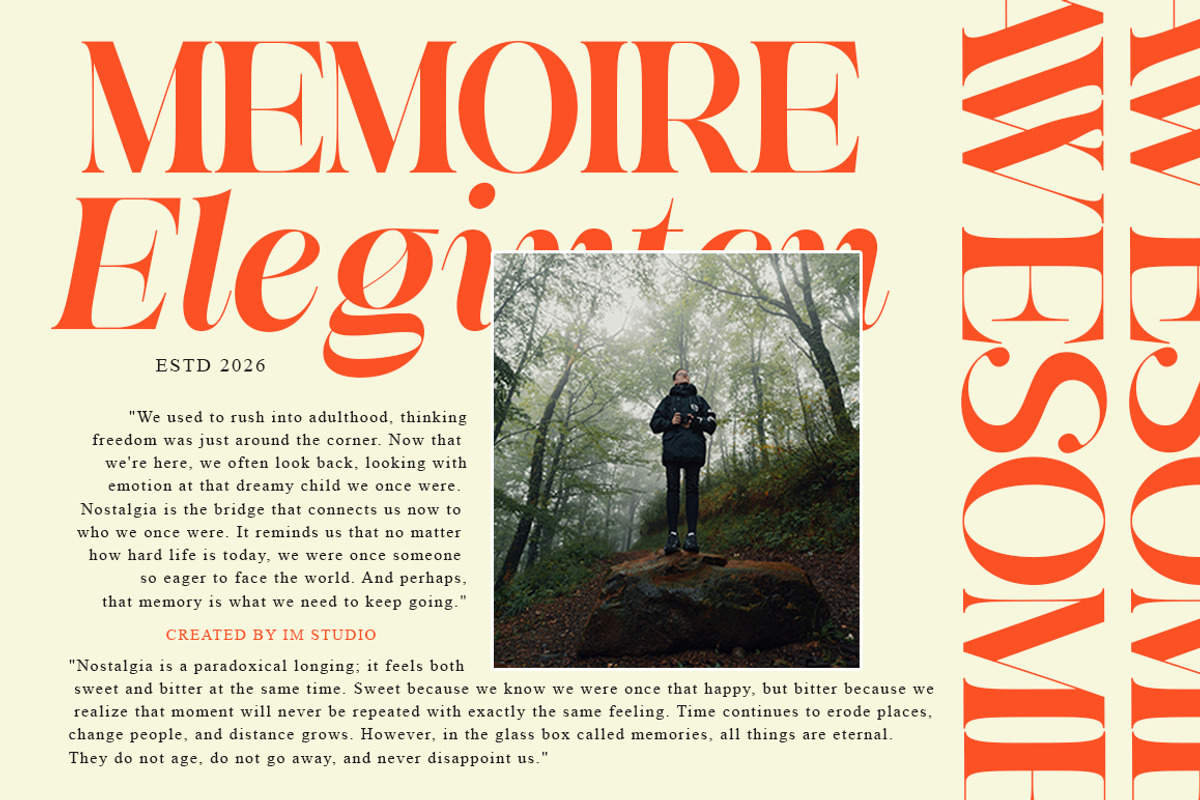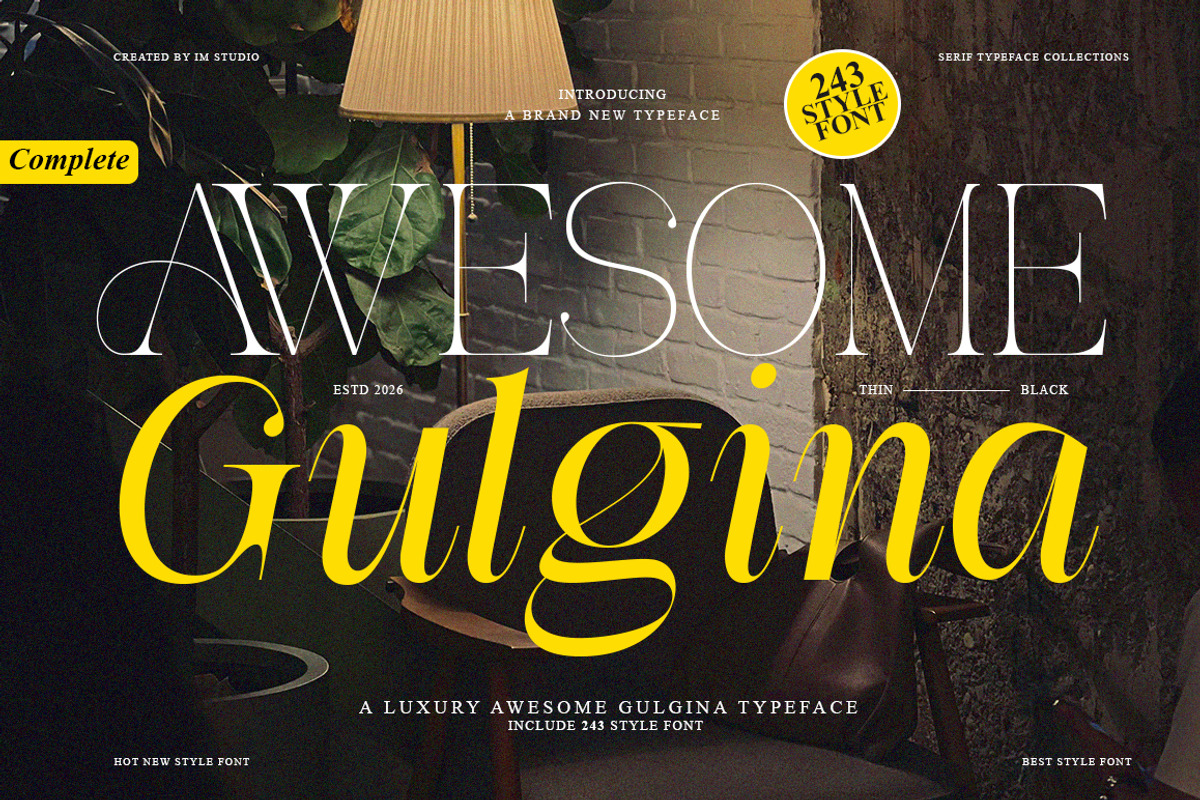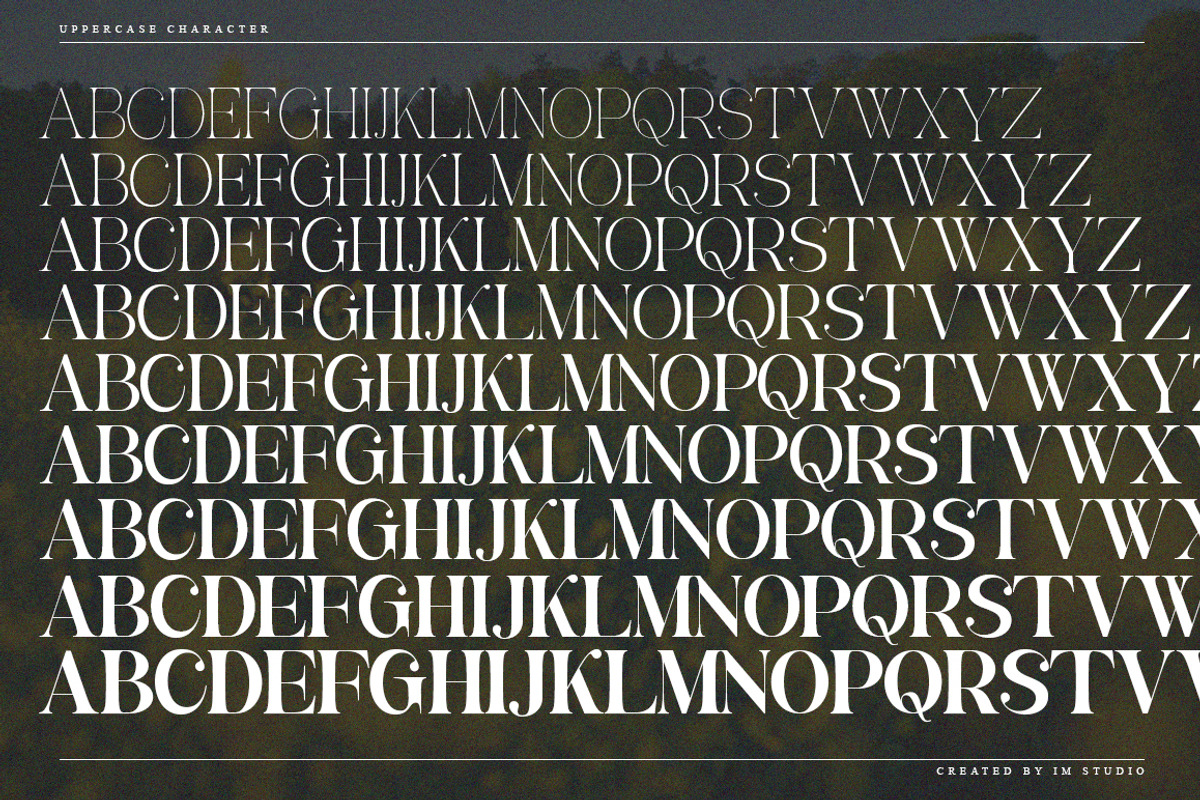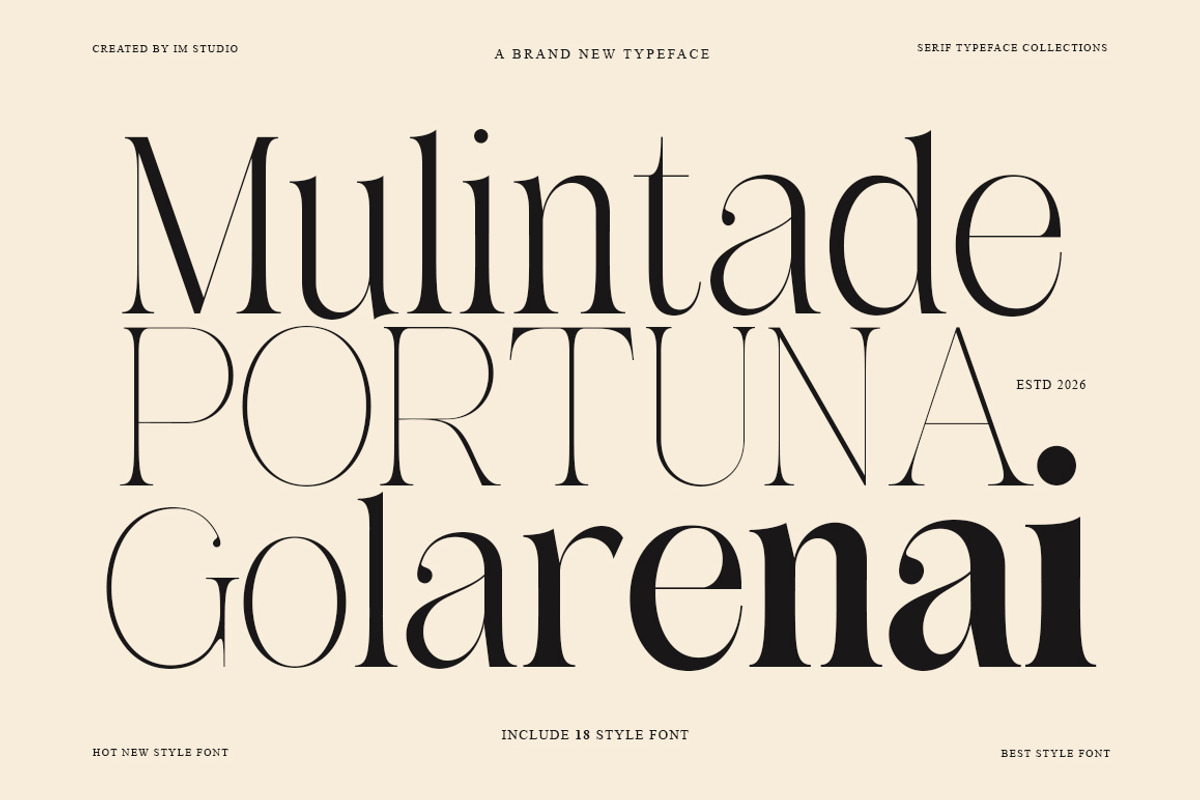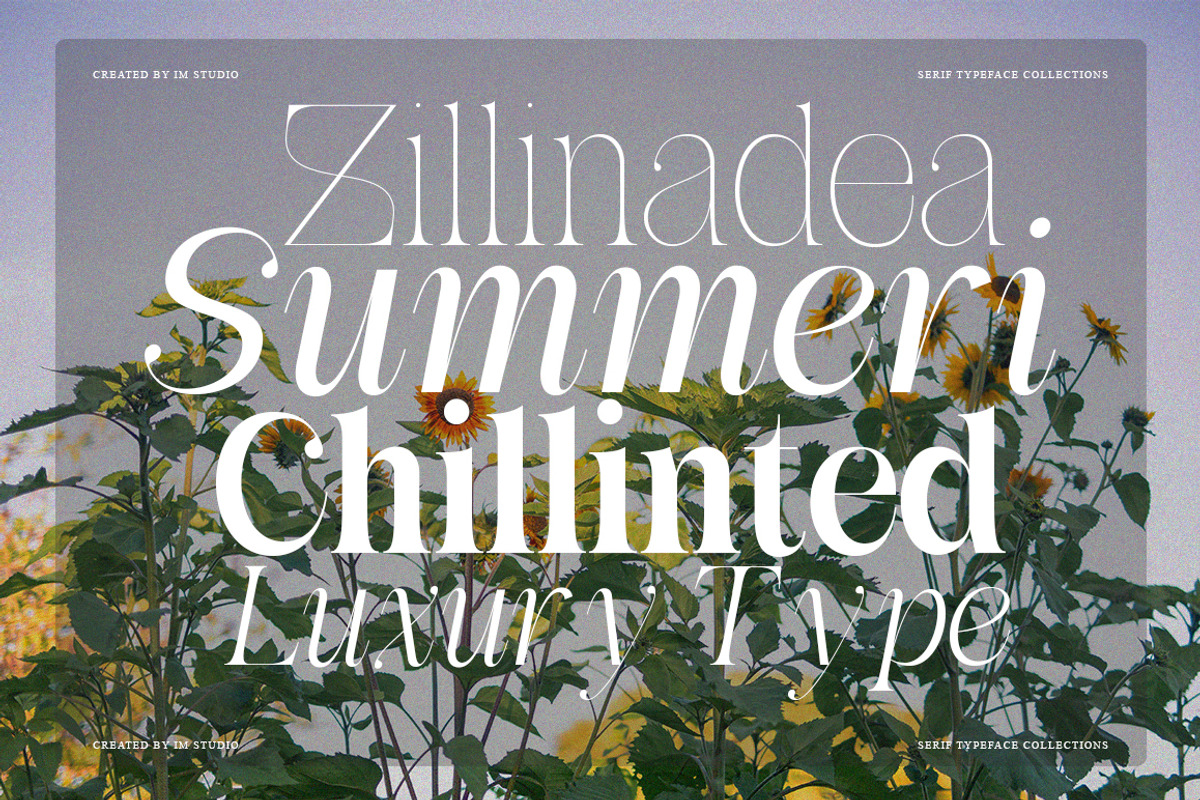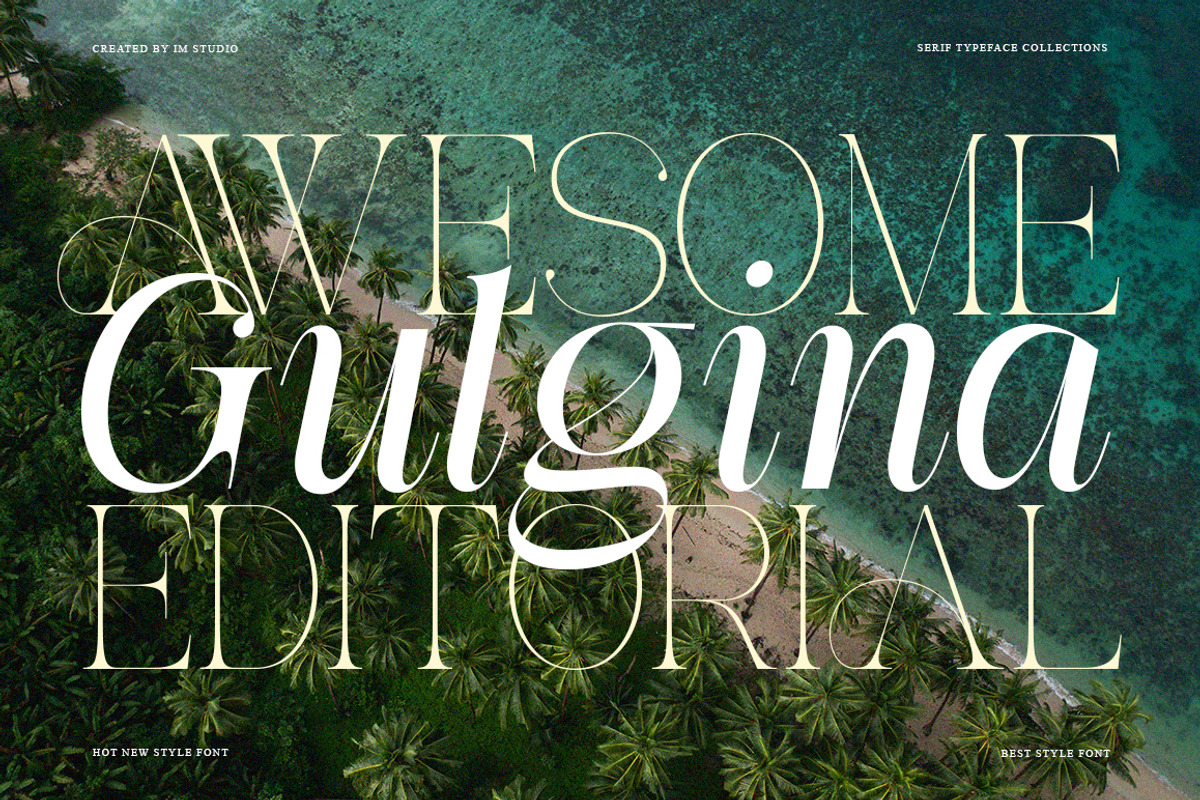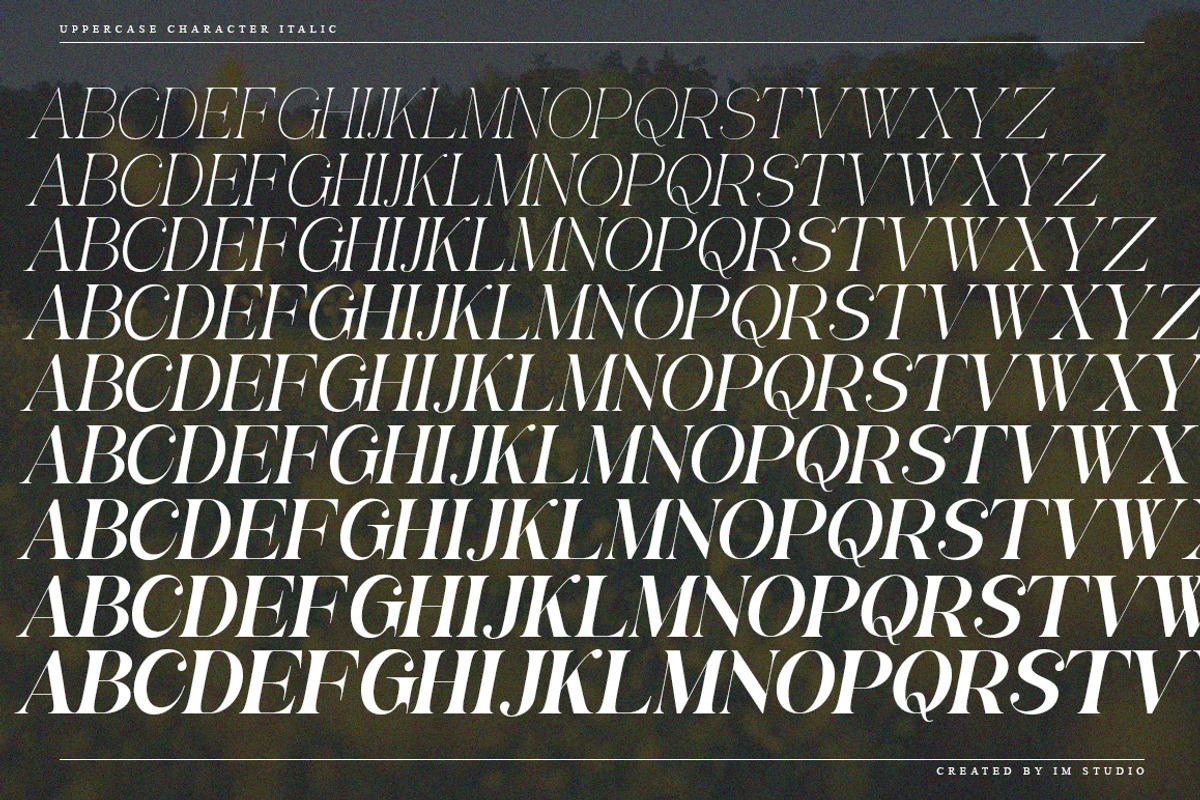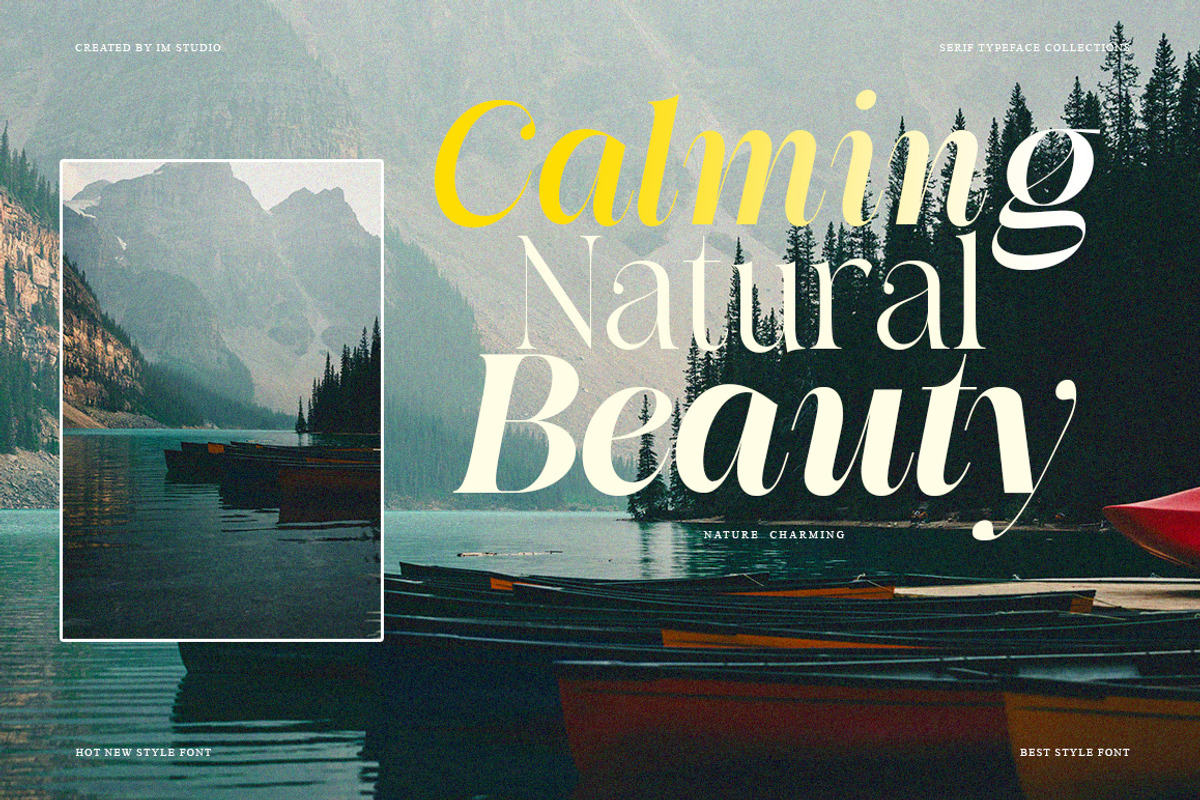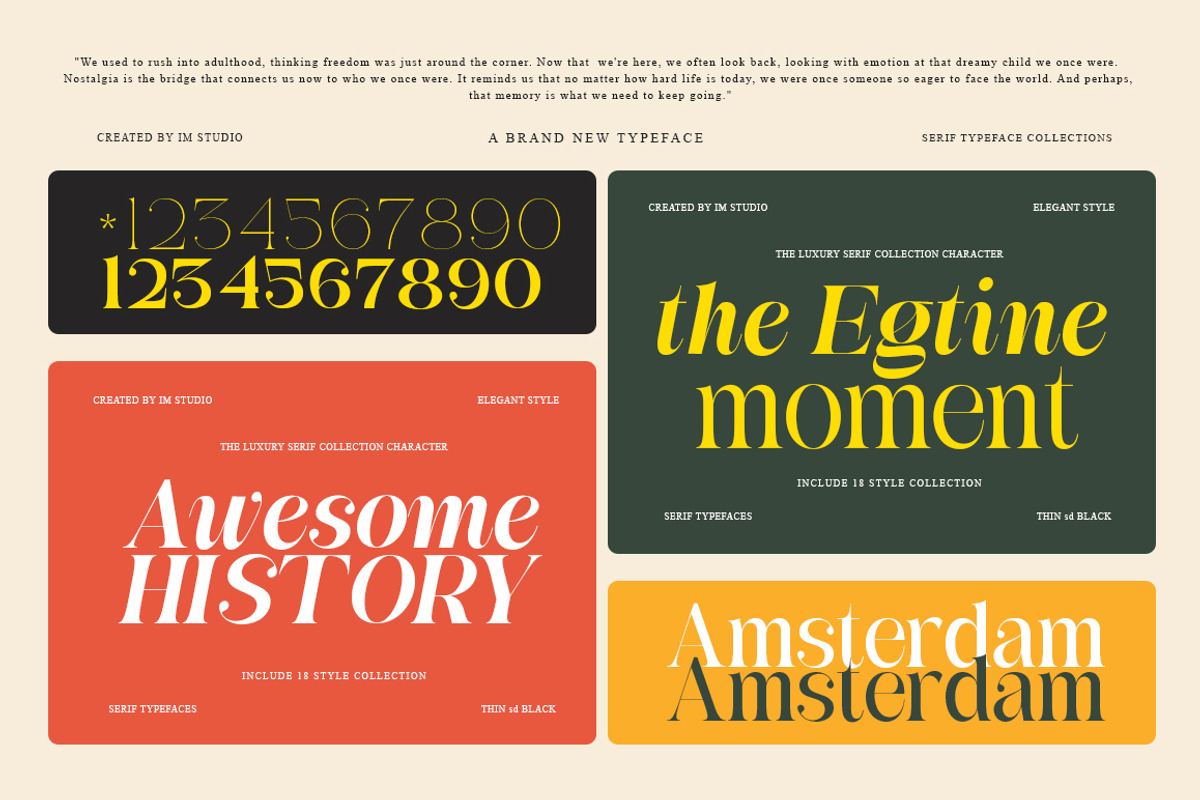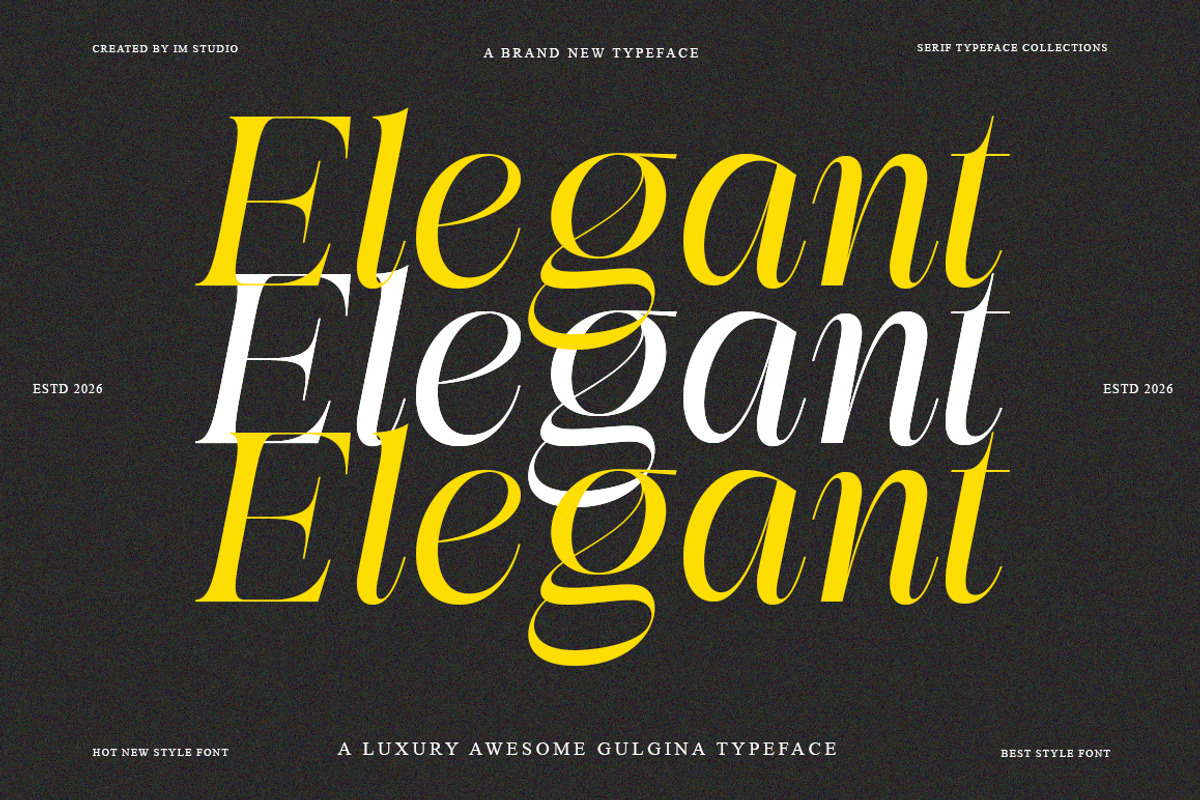
Awesome Gulgina Complete | 243 Fonts
Awesome Gulgina Complete | 243 Font Styles The Ultimate Typography Universe: Where Timeless Luxury Meets Boundless Flexibility.
Awesome Gulgina is more than just a typeface; it is a comprehensive design system. Featuring an stunning 243 font styles, this collection seamlessly blends the refined elegance of Serif with the rhythmic flow of True Italic.
Designed for those who refuse to compromise between classic elegance and modern usability, Awesome Gulgina delivers high-contrast strokes and meticulous proportions that command attention across any medium.
✦ The Power of 243 Styles From the softness of Ultra Condensed to the strength of Ultra Expanded, Awesome Gulgina provides an unprecedented spectrum of widths and weights. Serif: High-contrast elegance for a luxurious and editorial feel. True Italic: Specially drawn (not slanted) to deliver smooth and dynamic rhythm. Width Variations: Including Extra Condensed, Semi Condensed, Extended, Semi Extended, and more — ensuring a perfect fit for every layout constraint.
✦ Key Highlights Superior OpenType Features: Unlock a world of creative possibilities with advanced ligatures and stylistic alternates that give your text a distinctive, handcrafted feel. Global Language Support: With support for over 90 languages (Western & Central European), your message stays consistent across international borders. Uncompromising Legibility: Whether high-resolution print or mobile interfaces, crisp contrast ensures a premium reading experience. Effortless Harmony: All 243 styles are designed to work together, allowing you to mix Serif and Italics while maintaining a cohesive brand DNA.
Enter the world of Awesome Gulgina. Transform your creative vision with a font family that offers limitless expression, undeniable confidence, and a touch of timeless class.